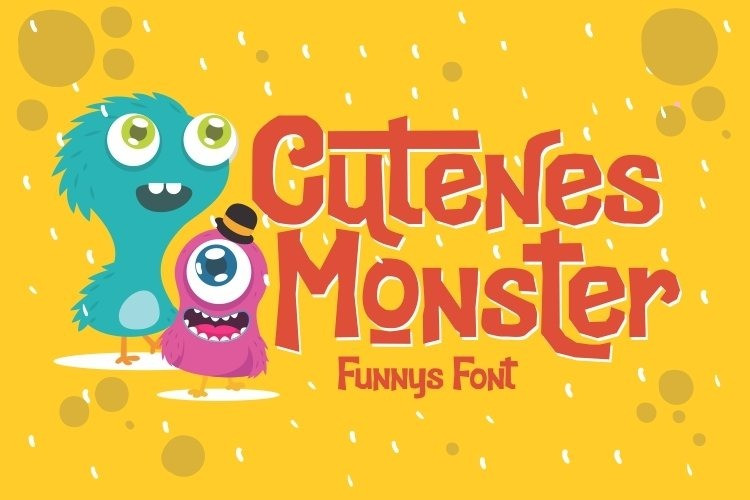
Cutenes Monster Display Font
Cutenes Monster a display font. This font
will looks awesome and amazing in many way to your latest project.
Cutenes Monster is perfect for many different
project such as logos & branding, invitation, stationery, wedding
designs, social media posts, advertisements, product packaging, product
designs, label, photography, watermark, special events or anything